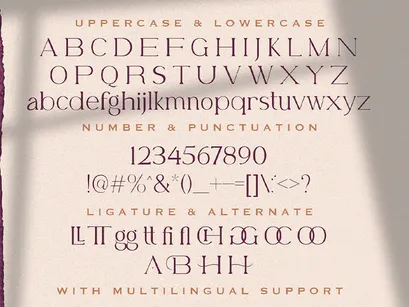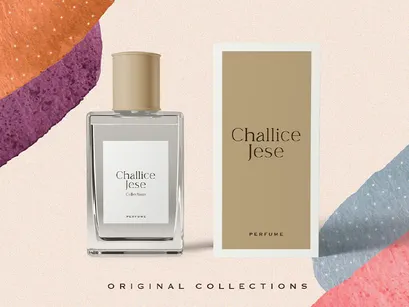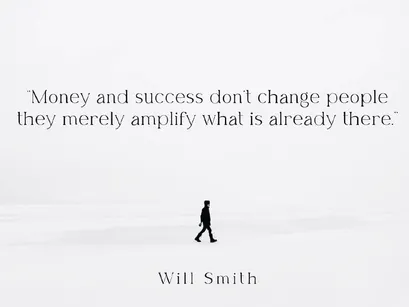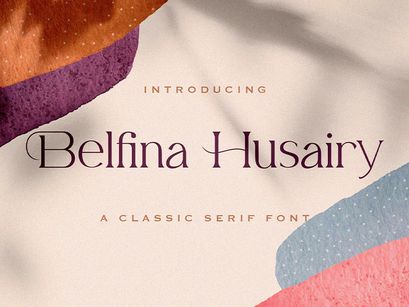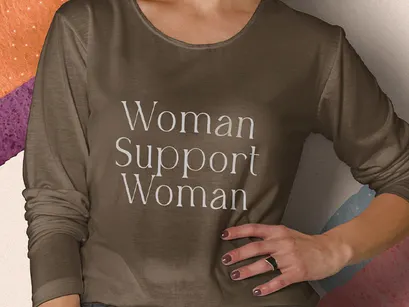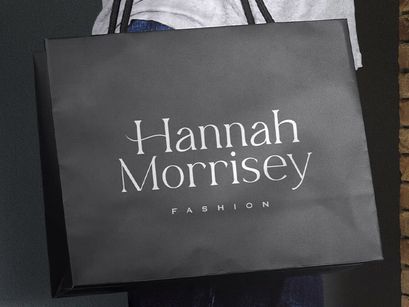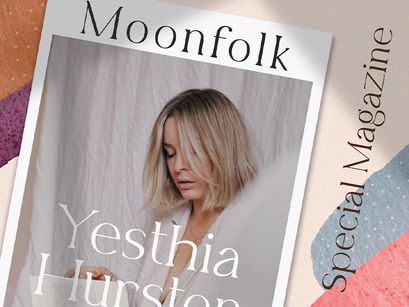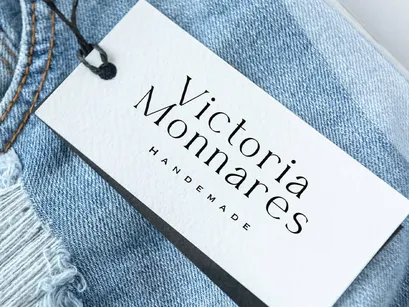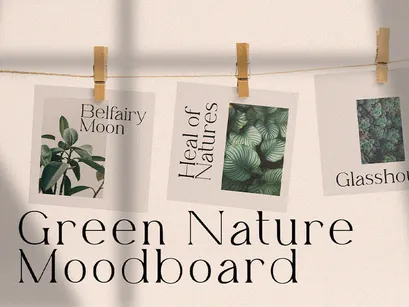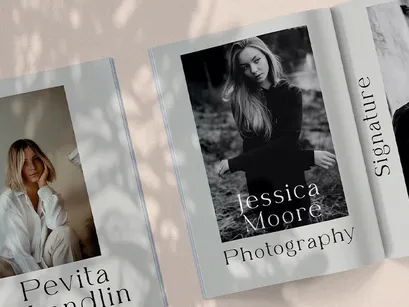
Belfina Husairy - Classic Serif Font
Introducing Belfina Husairy - Classic Serif Font
Belfina Husairy is an authentic and neat serif font. It can easily be matched to an incredibly large set of projects, so add it to your creative ideas and notice how it makes them stand out!
• Ligatures
• Alternates
• Uppercase and Lowercase letters
• Numbering and Punctuations
• Multilingual Support